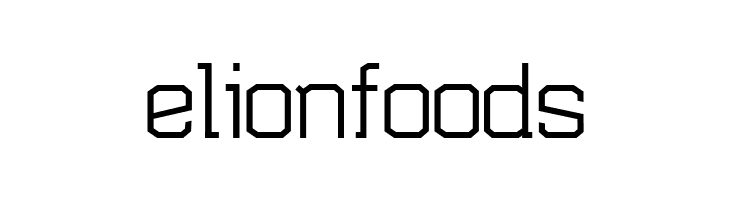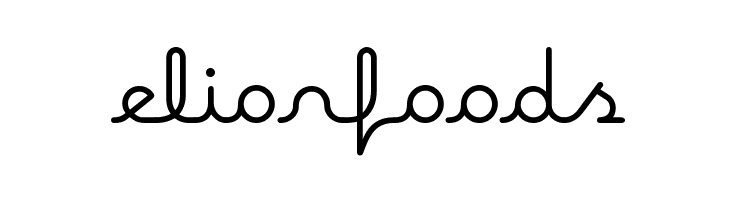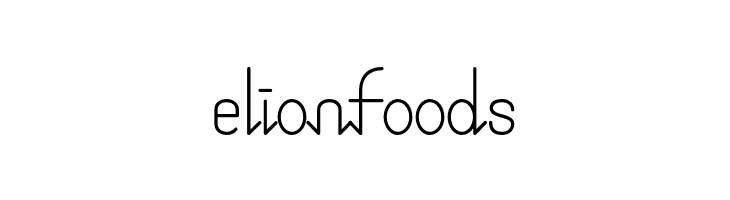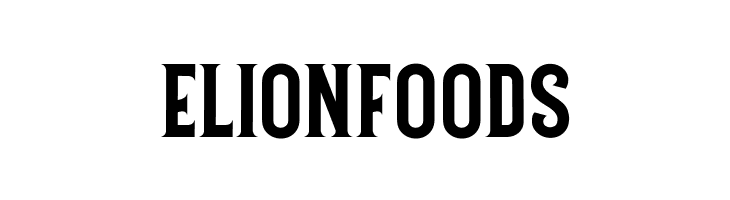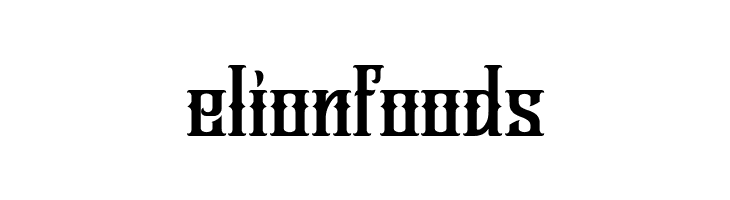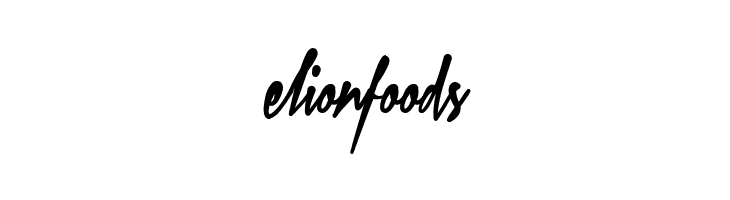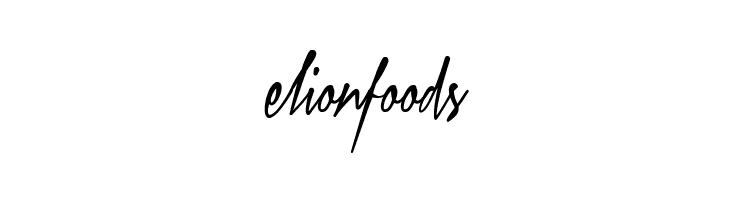
A bold, expressive handwritten font with dynamic strokes and a playful style.
A playful, hand-drawn font with a rustic and whimsical style.
A modern, continuous line font with fluid, interconnected characters.
An angular, geometric font with a modern and artistic style.
A bold, high-contrast serif font with a vintage flair.
A bold, Gothic-inspired font with sharp, angular lines and dramatic style.
A bold, handwritten font with dynamic and energetic strokes.
A dynamic handwritten font with elongated, slanted characters.